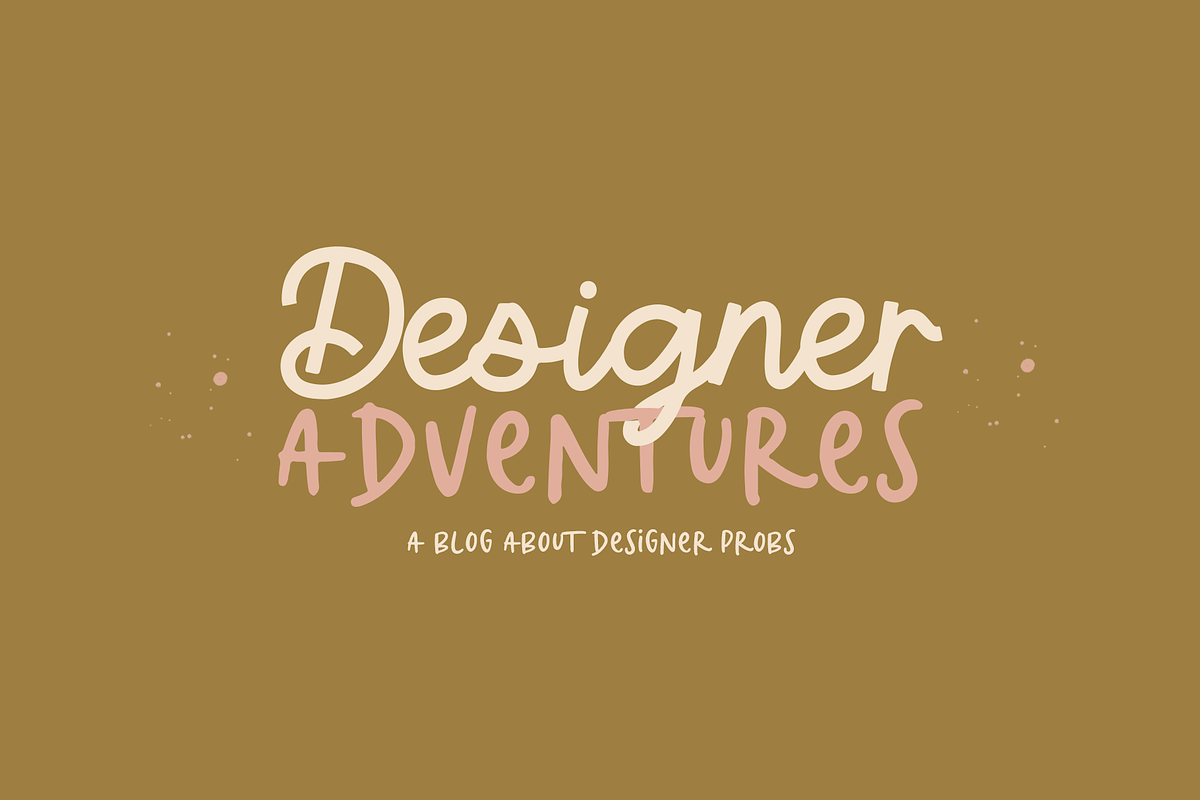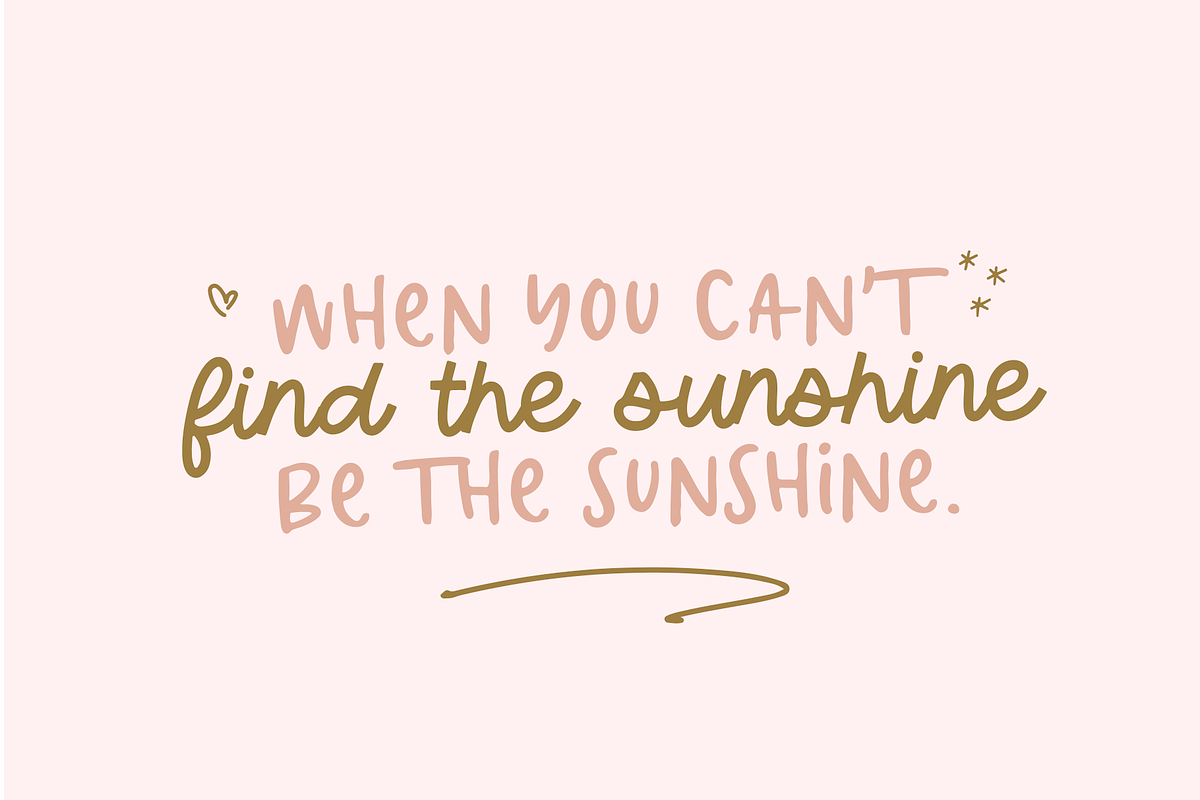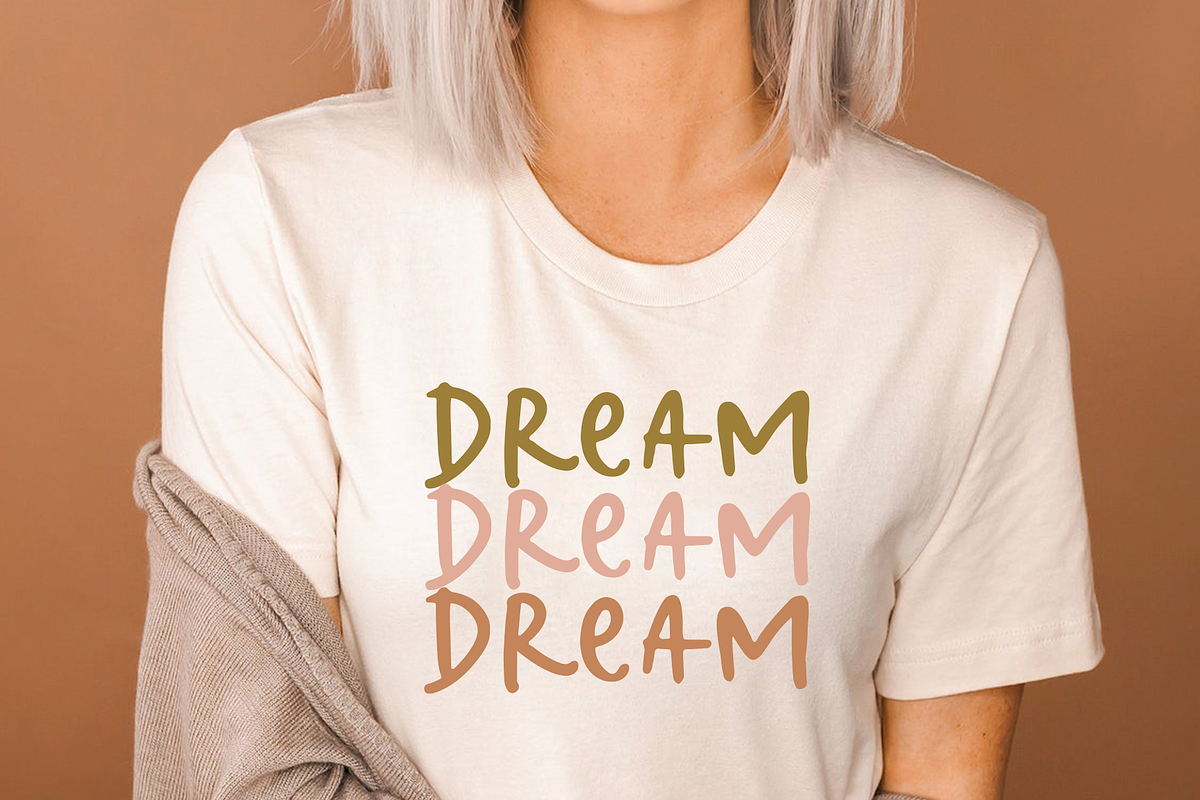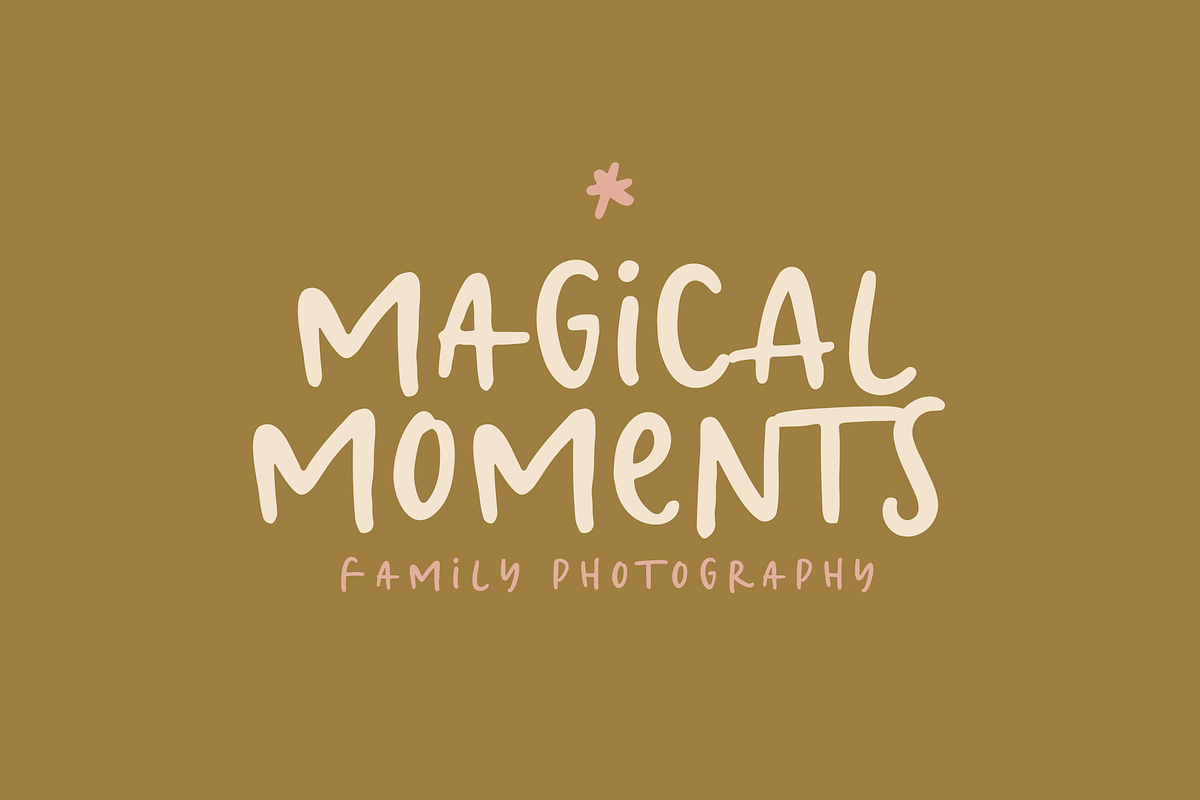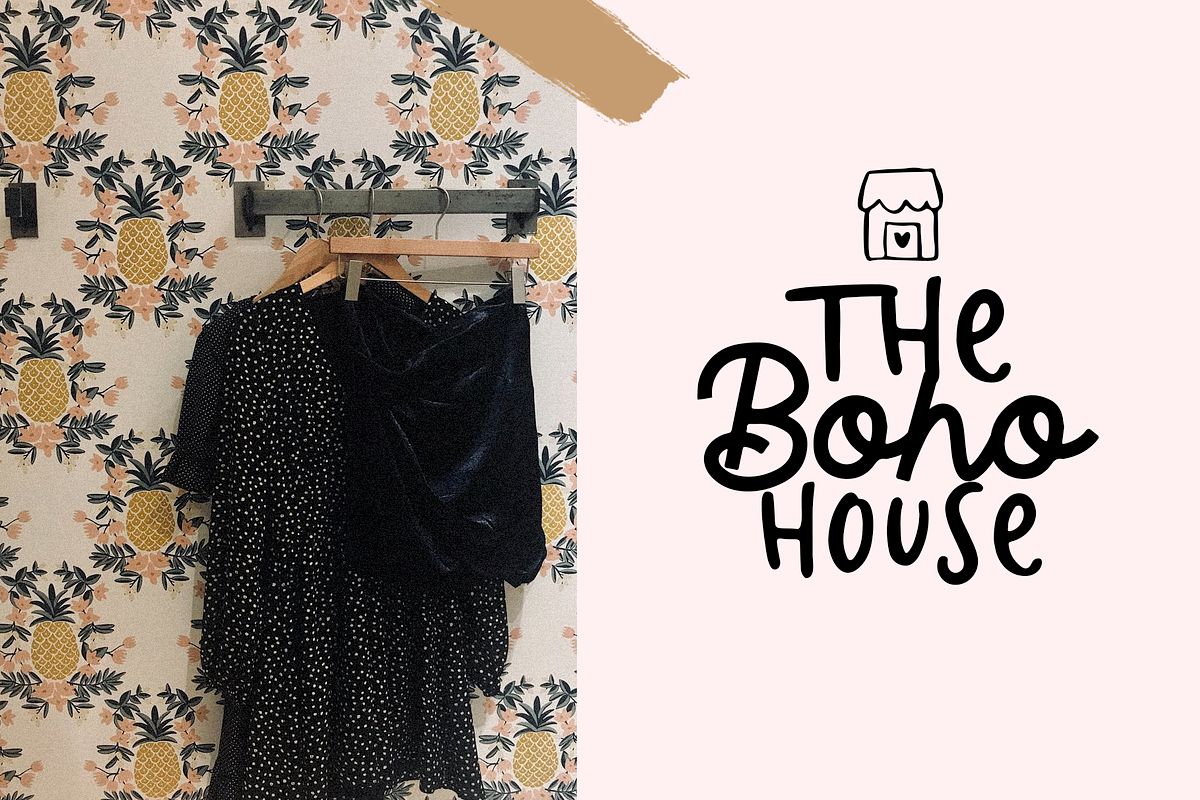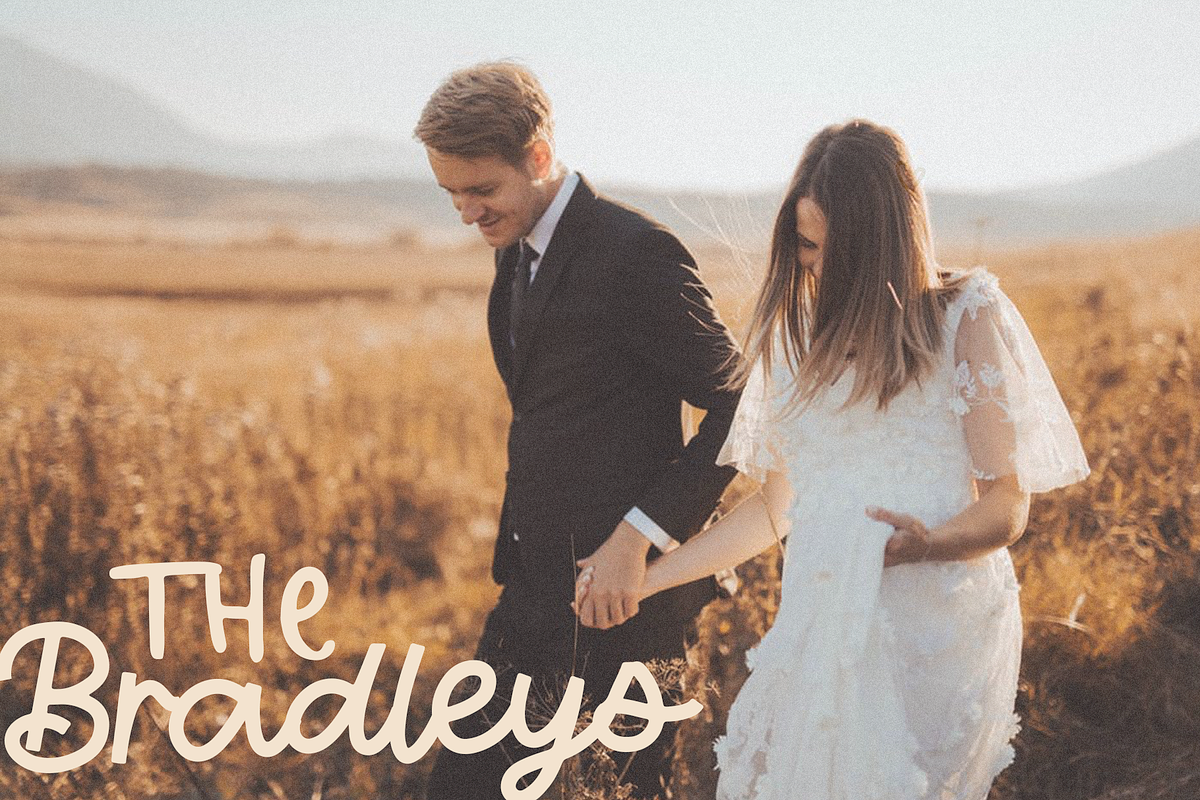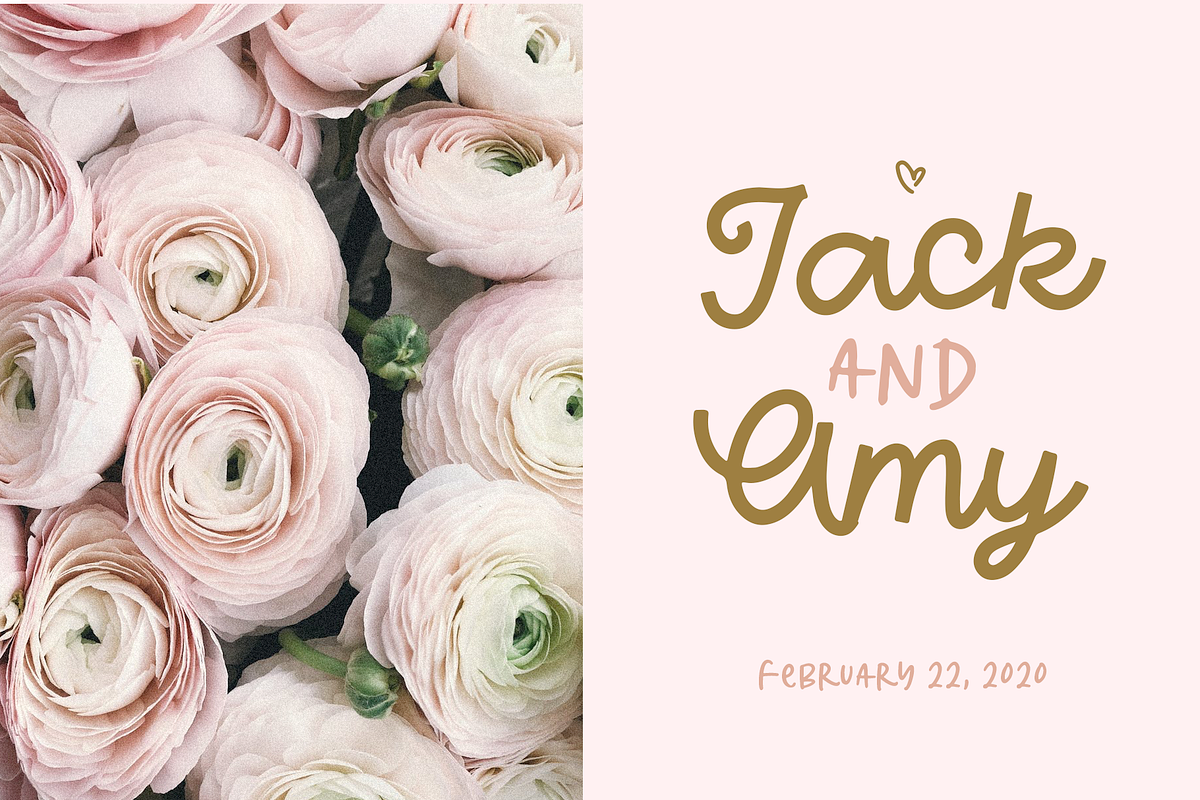
Riverside Market | Script Font Duo
Riverside Market Font Duo is a handwritten font pair.
Market Print - a quirky + authentic print font. [TTF & OTF]
Riverside Script - a monoline script font. [TTF & OTF]
This duo is perfect for quotes, headings, blogs, logos, brandings, invitations and more!